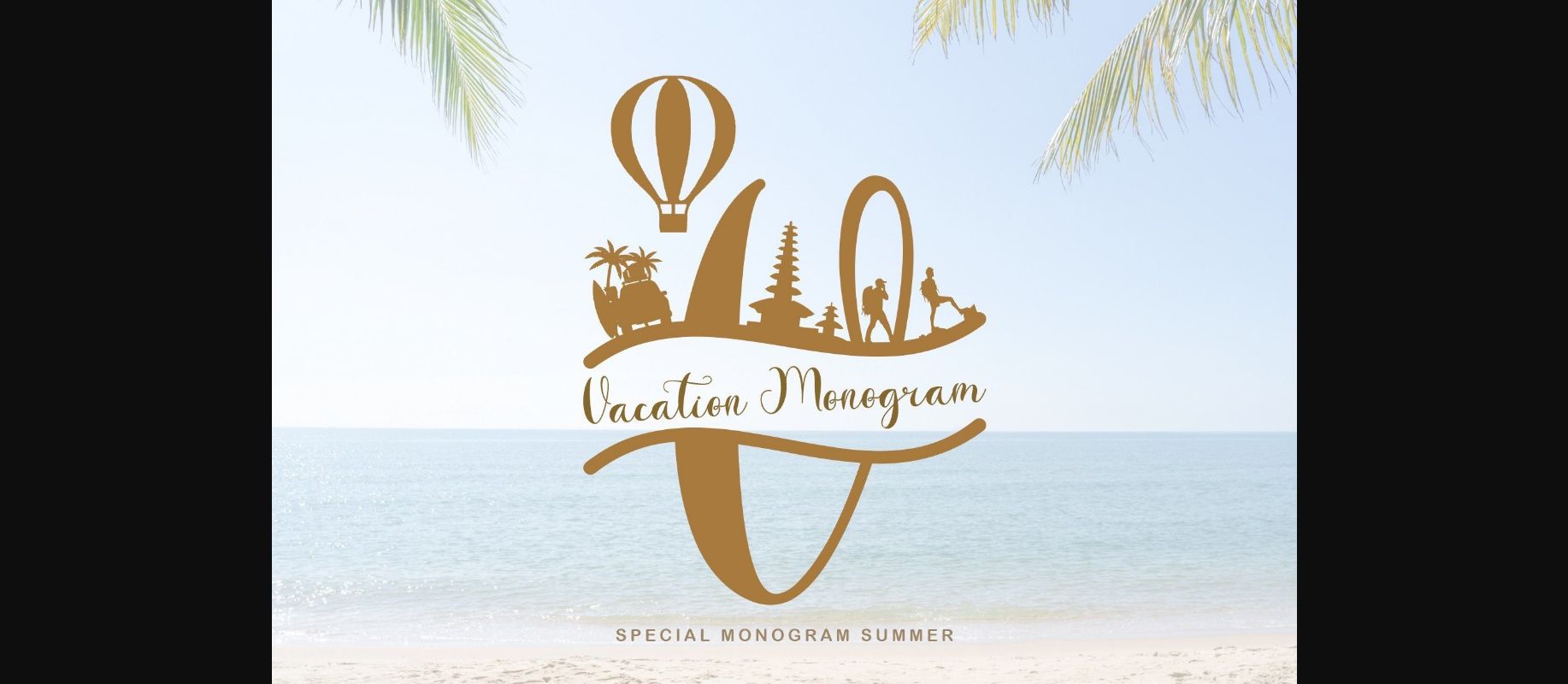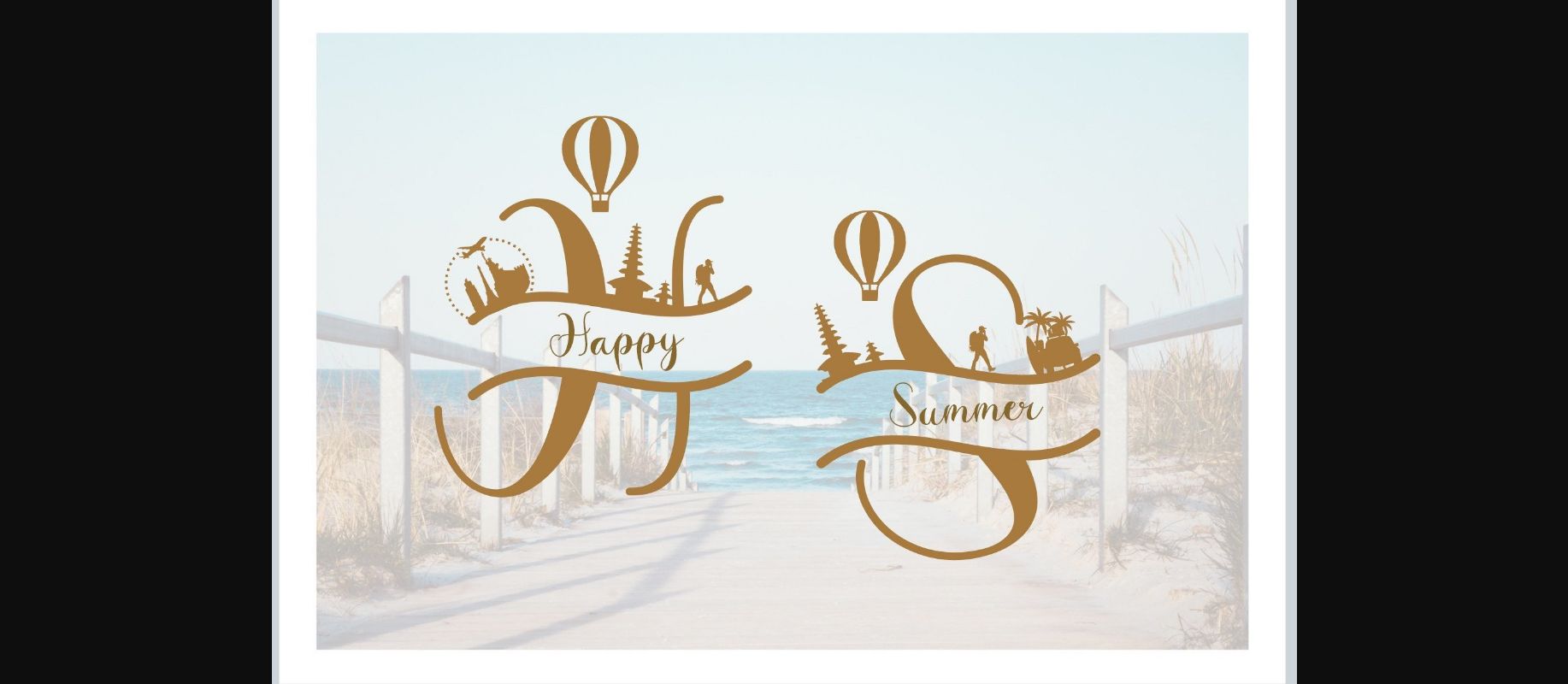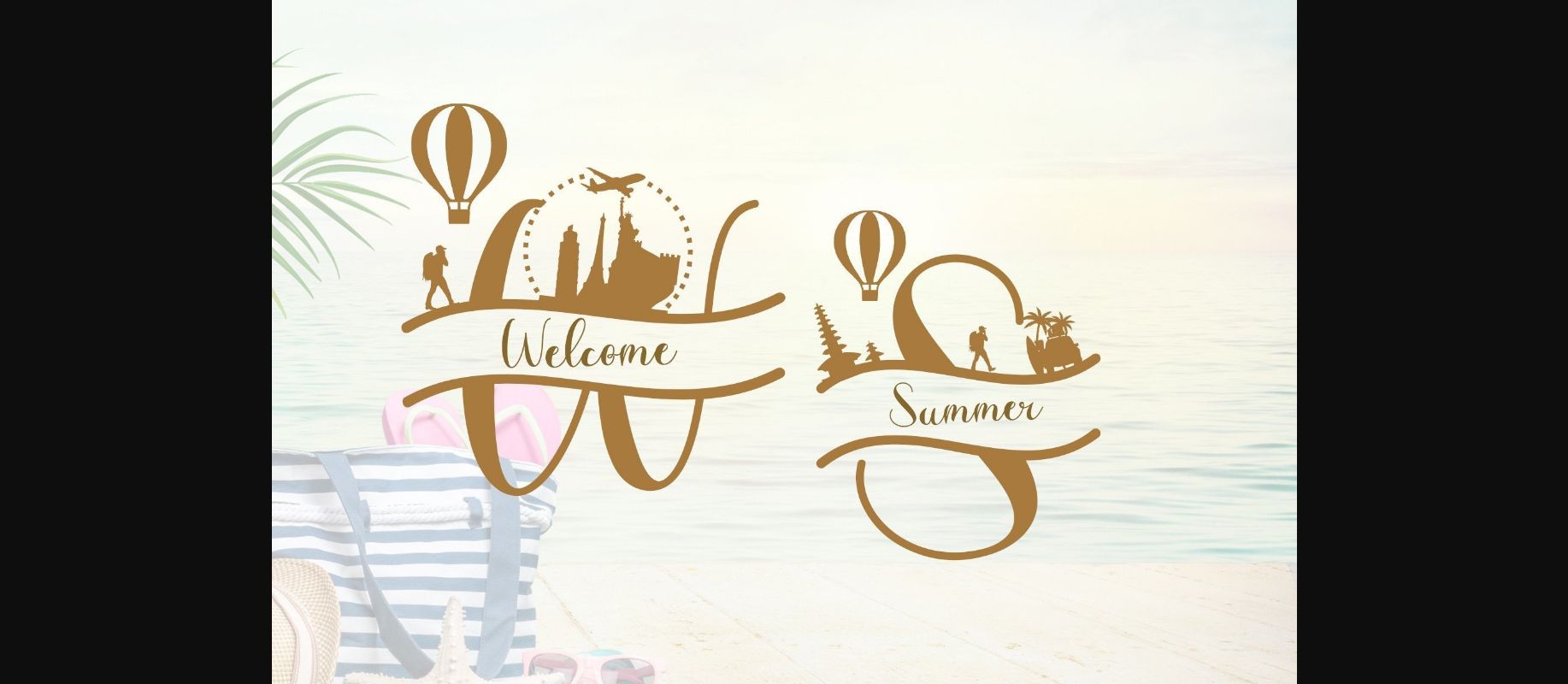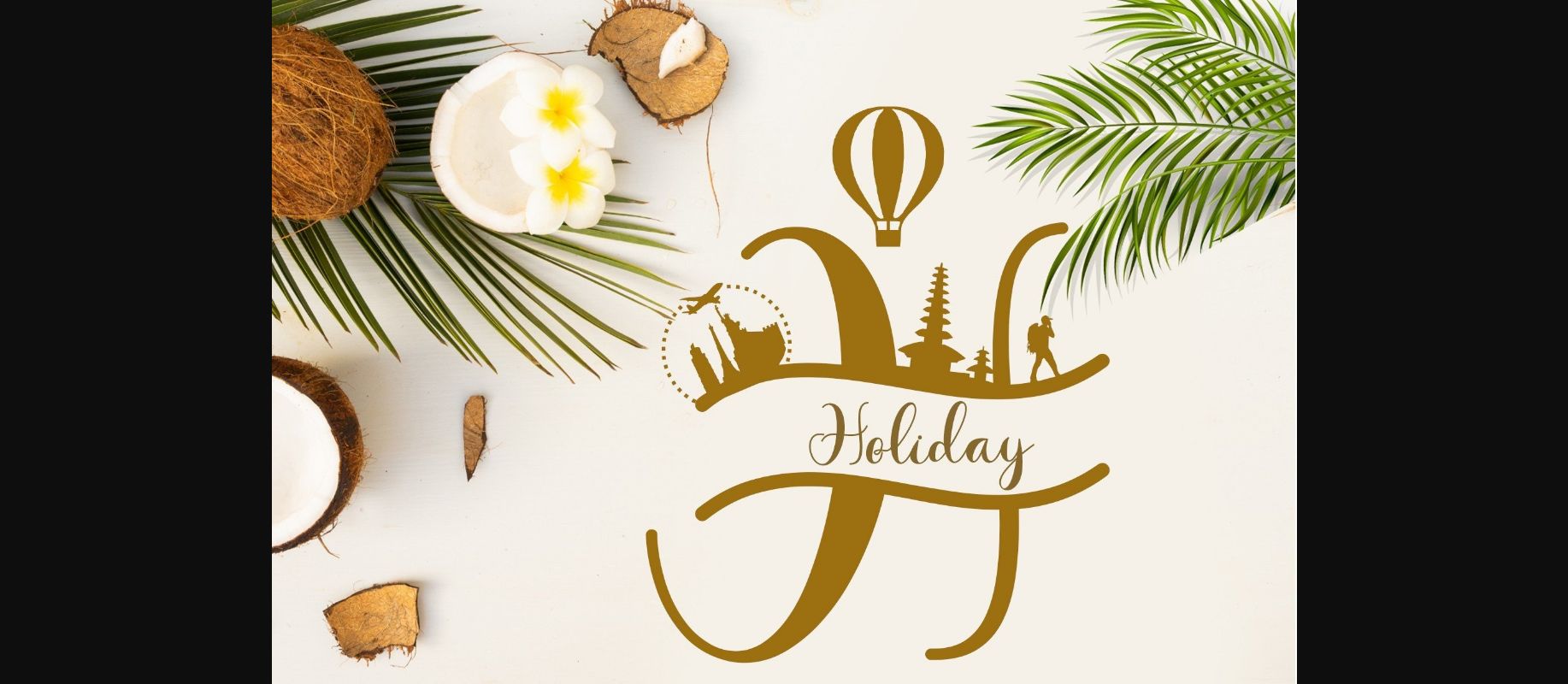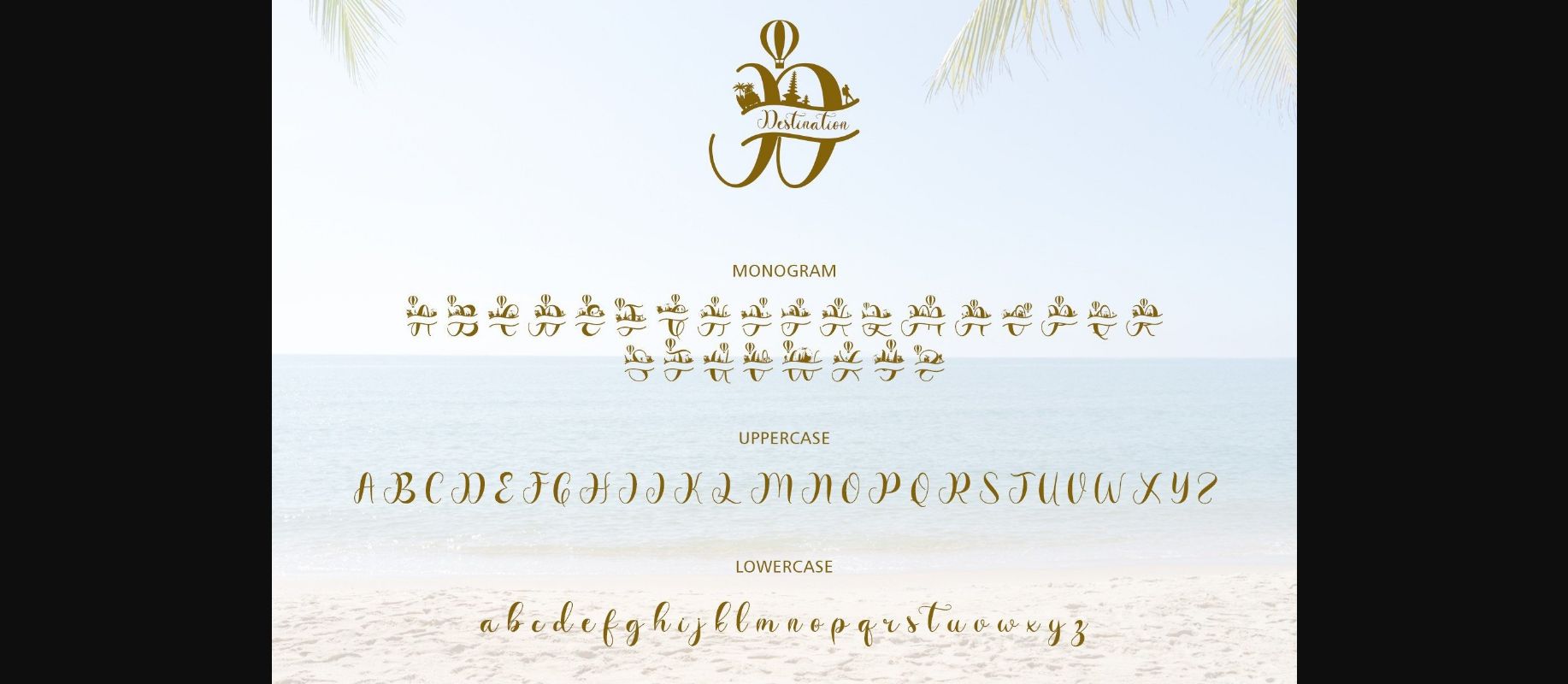
Vacation Monogram Font
About Vacation Monogram Font
“Vacation Monogram” is a script font combined with a monogram. This monogram is decorated with forms of tourism and traveling around the world.